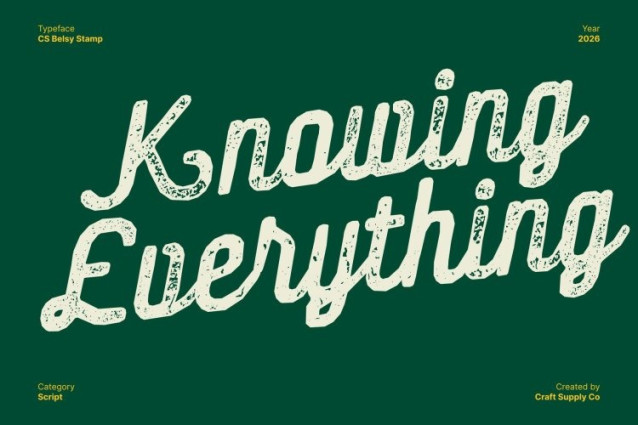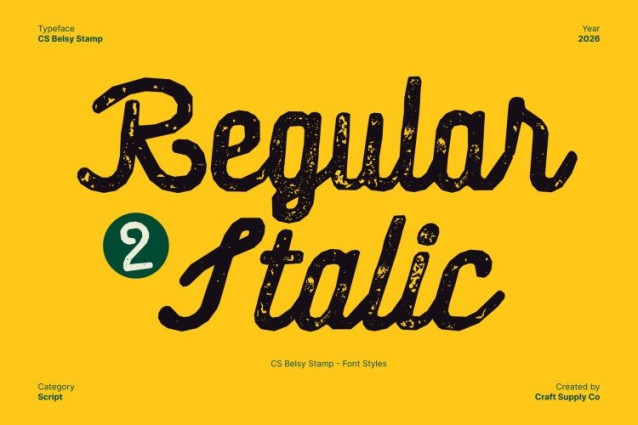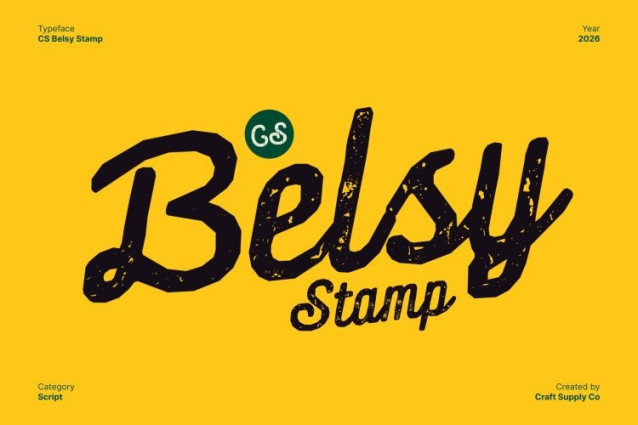
CS Belsy Stamp Font
CS Belsy Stamp Font This is a script font that captures the charm of authentic handwriting through fluid, soft strokes and elegant curves. Its graceful rhythm feels personal and expressive, enhanced by a subtle stamp effect that adds textured depth and gentle imperfections. This stamped finish gives the font a vintage, hand-pressed character while preserving its feminine and sweet personality.
Aesthetic Letterforms with Artistic Texture
Each letter in this font is crafted to resemble lovely penmanship, blending stylish loops with natural flow. The added texture introduces an artistic, slightly worn look that enriches its warmth and charm. This balance of beauty, playfulness, and stamped authenticity makes every word feel emotionally engaging and visually refined.
Perfect for Feminine Branding and Romantic Invitations
From wedding invitations and skincare packaging to beauty branding and heartfelt messages, this font delivers intimacy and sophistication. Its textured script style is especially suited for women-focused designs, romantic occasions, and brands that value elegance, softness, and emotional connection now elevated with an old-style printed feel.
Express Your Message with Personality and Grace
With its handcrafted appearance, sweet charm, and vintage stamped texture, allows your message to stand out while remaining gentle and personal. It’s a versatile choice for creatives seeking to combine elegance, warmth, and individuality in expressive visual storytelling.